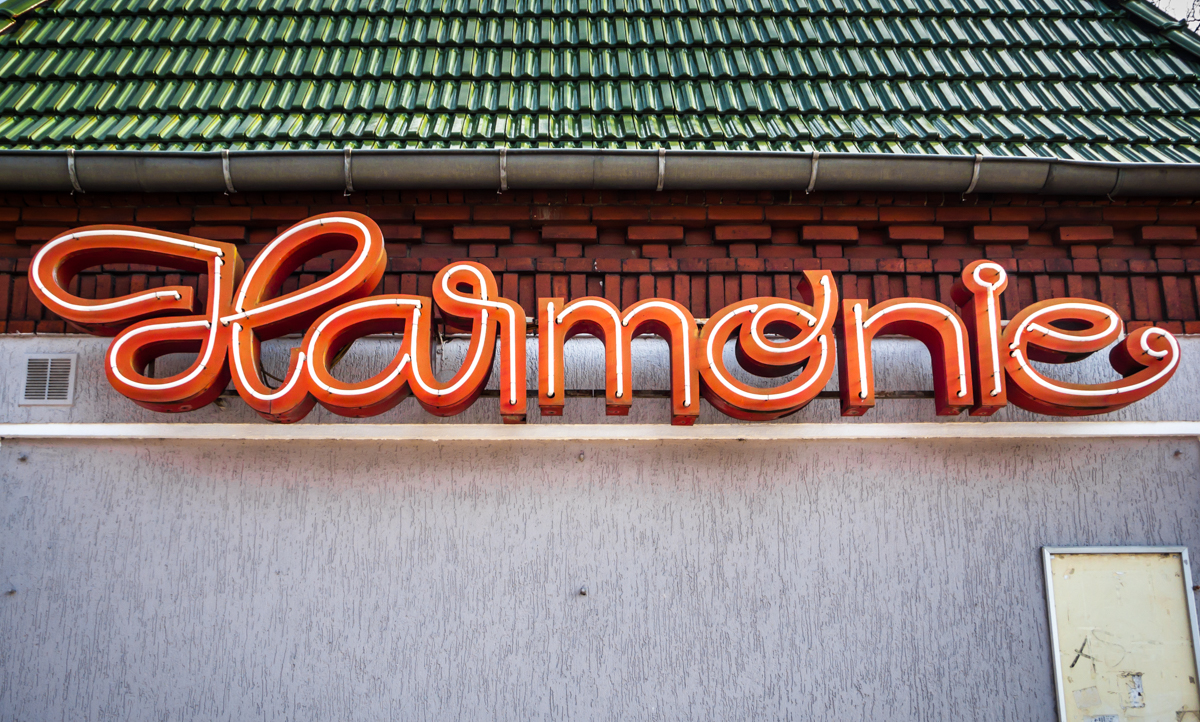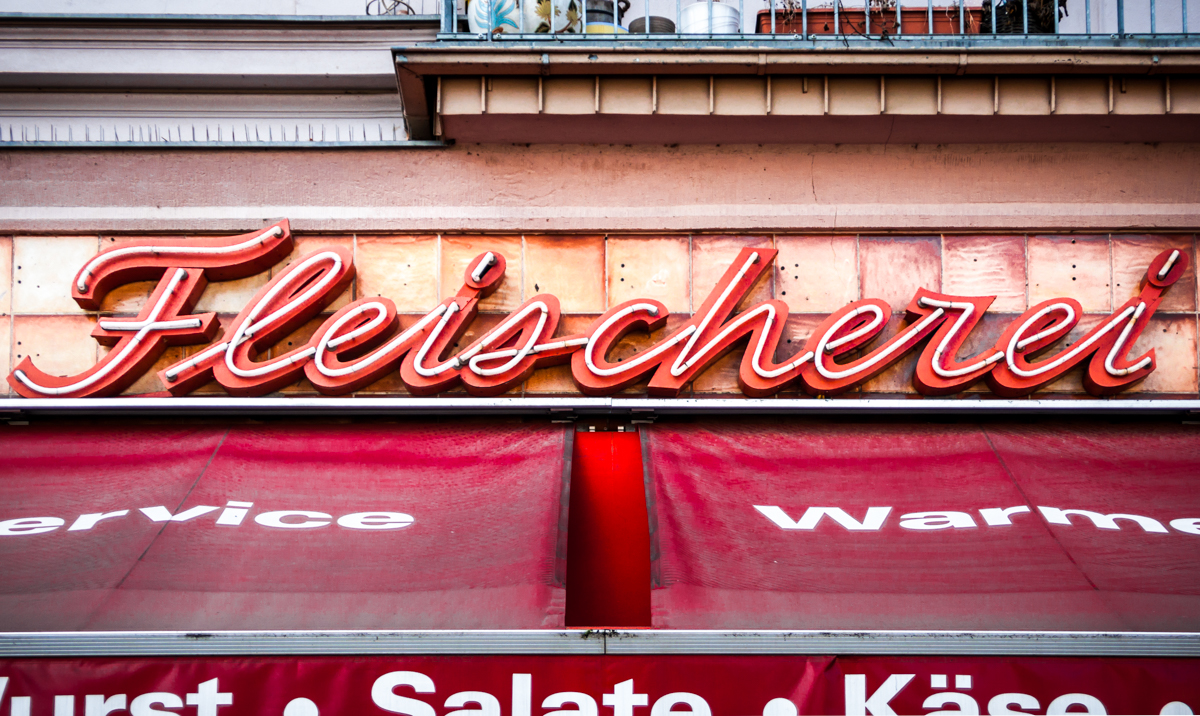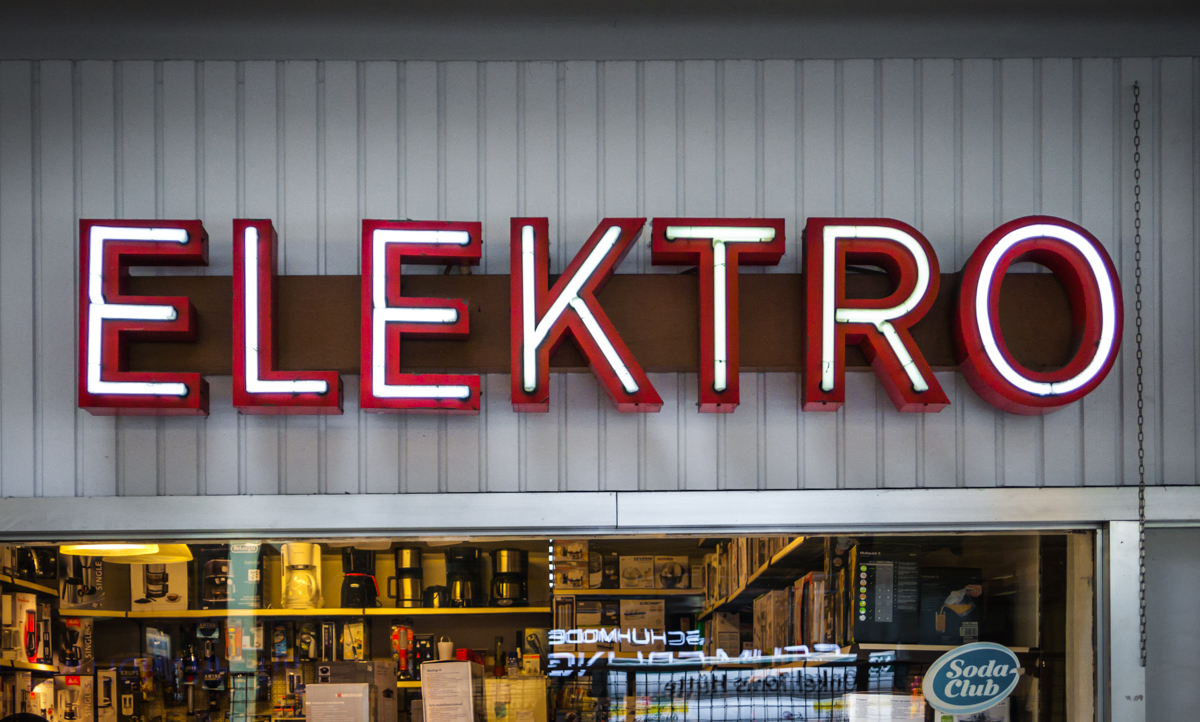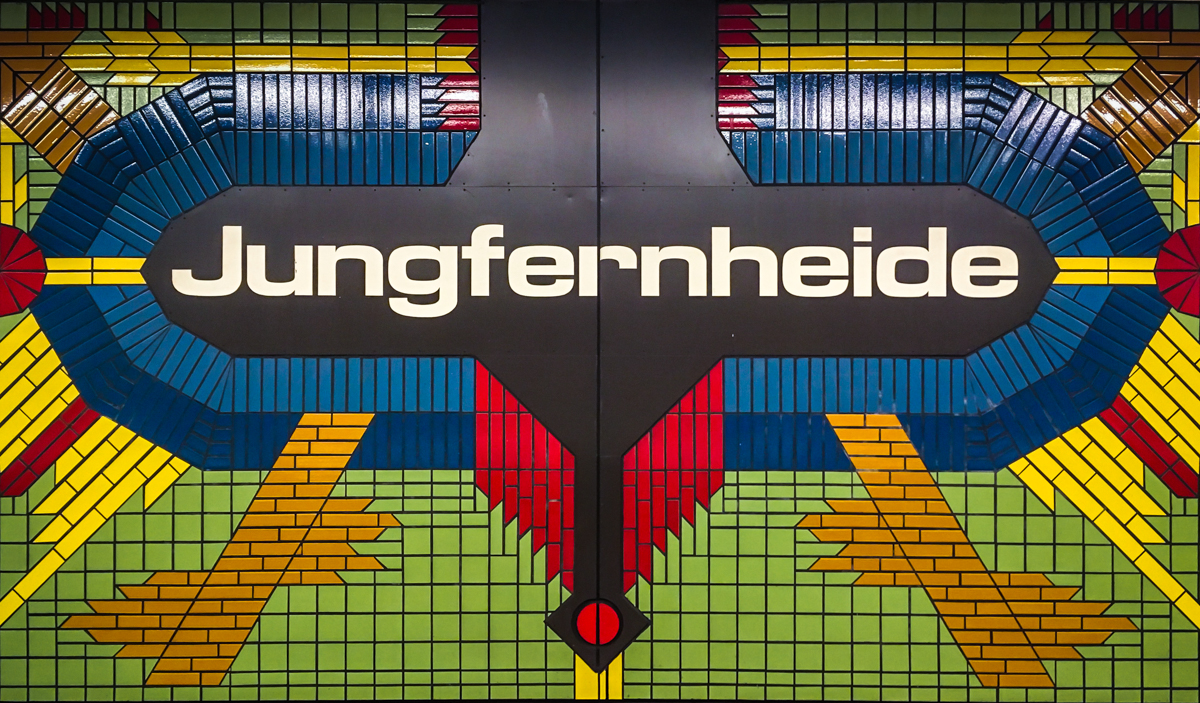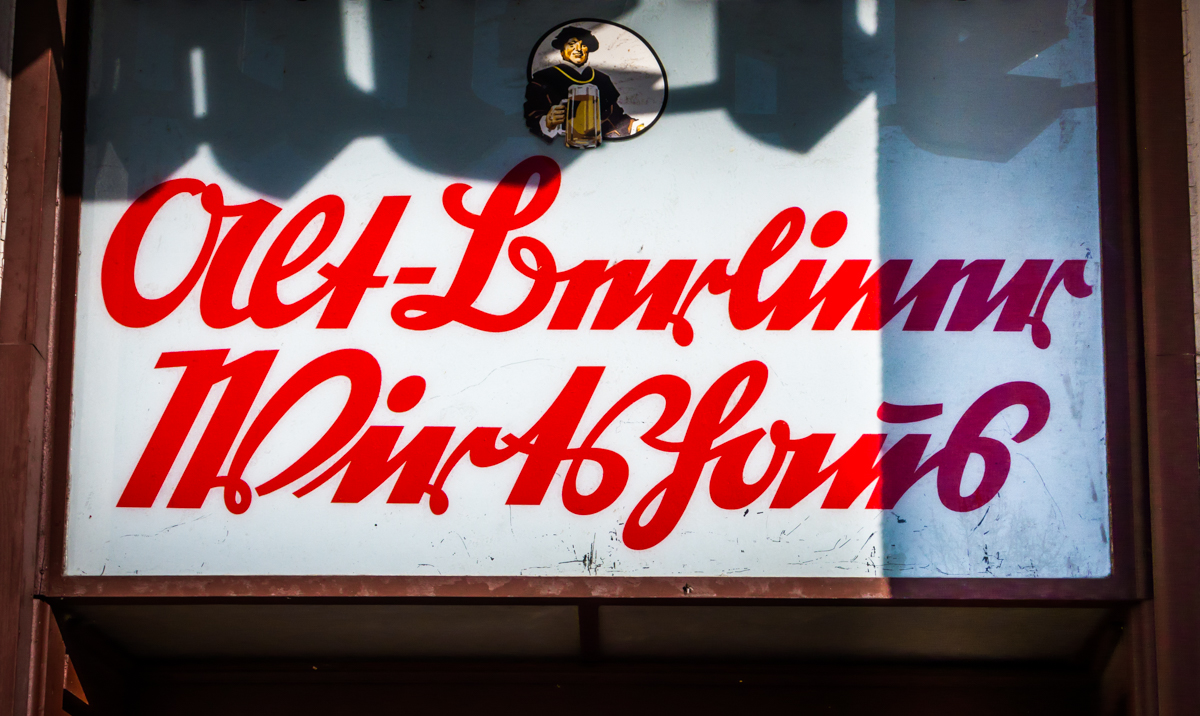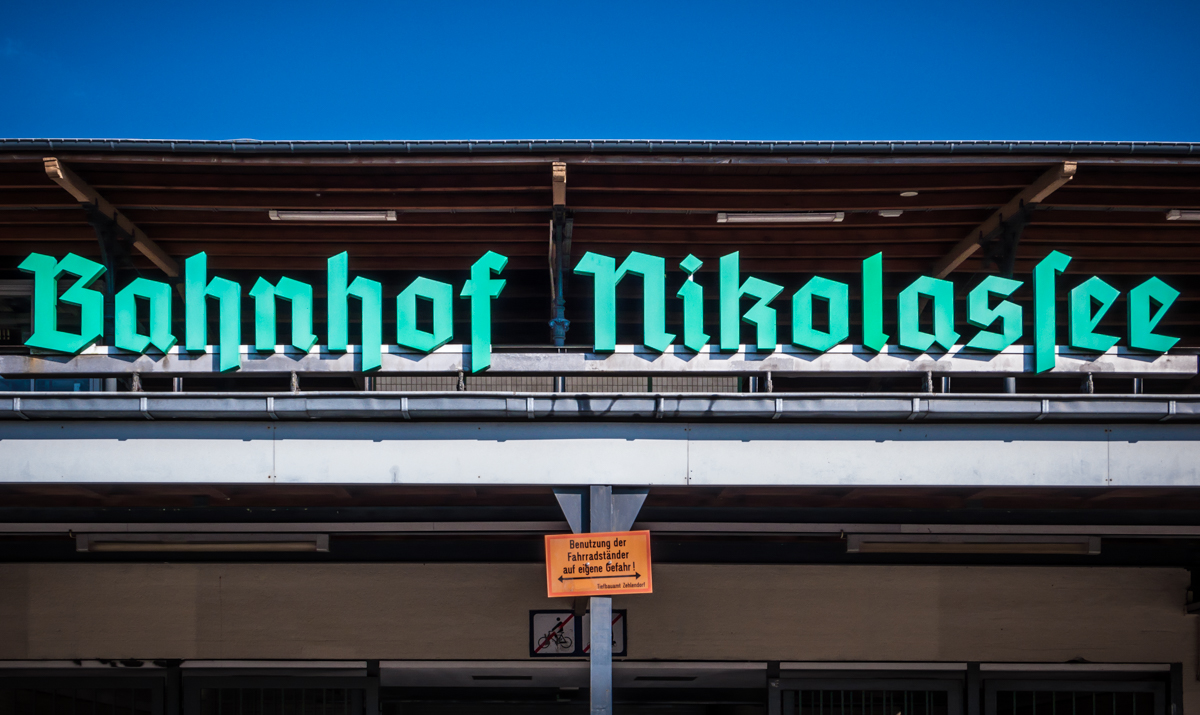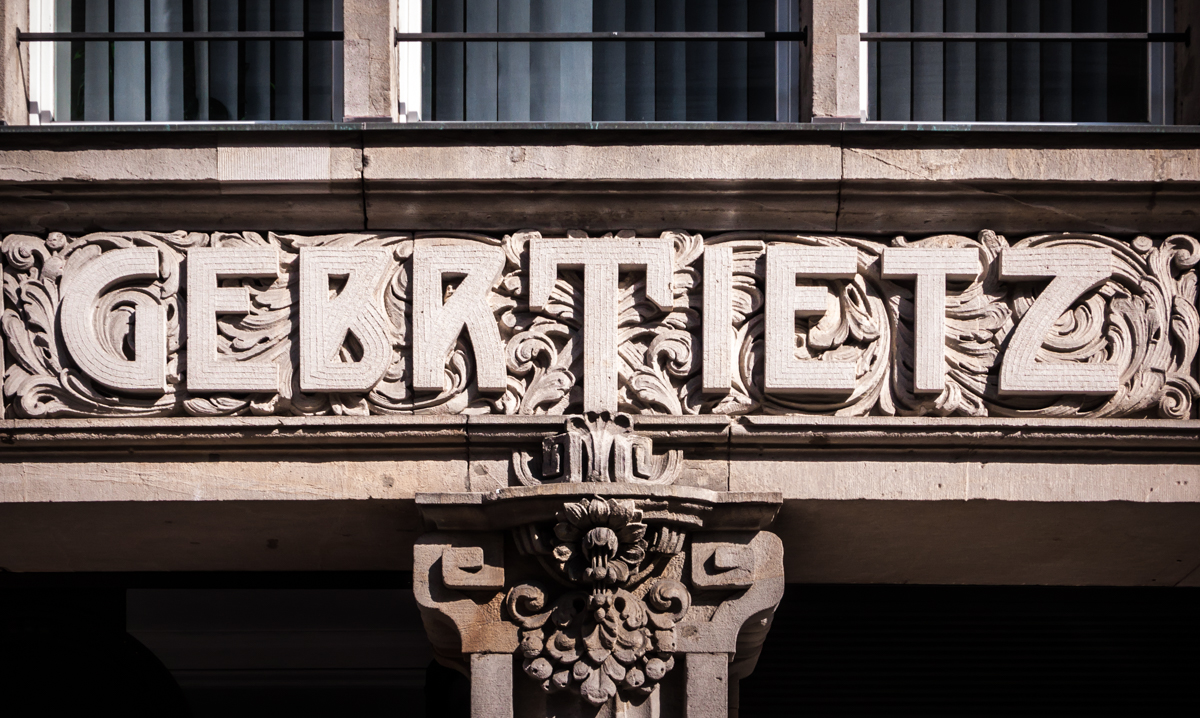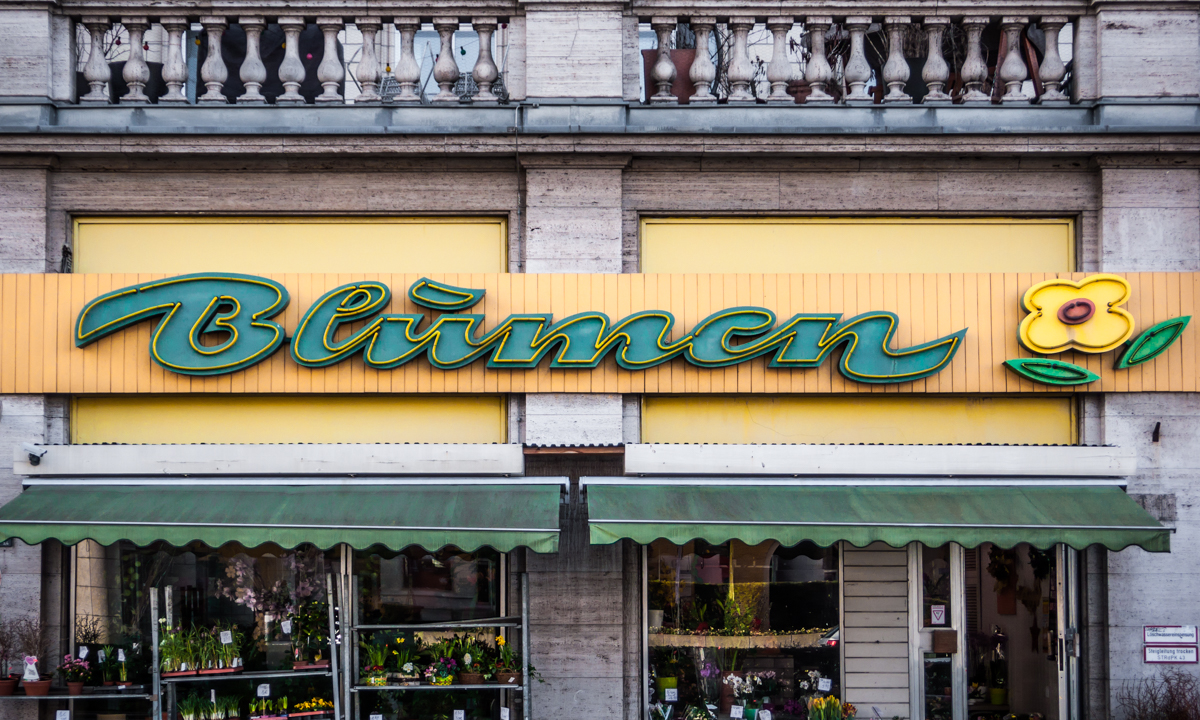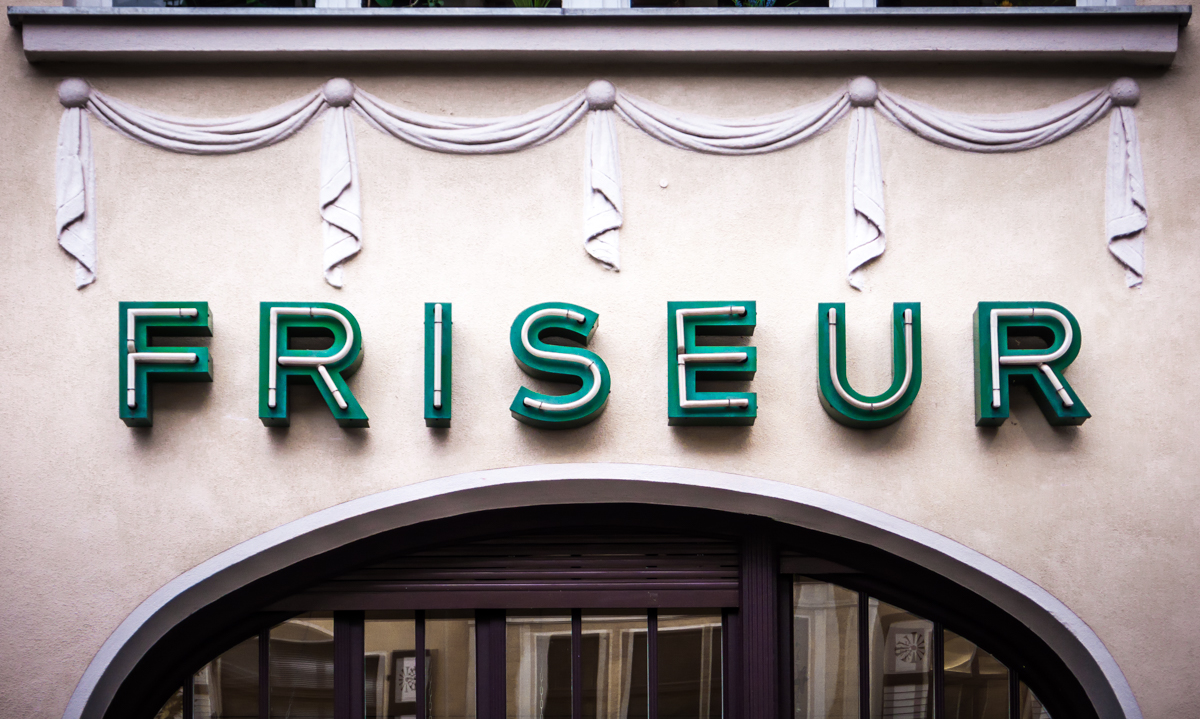
Berlin Typography Project: a talk with Jesse Simon on his Berlin's type hunting adventure
If you wonder what is Berlin's relation to typography the Berlin Typography Project has many answers to provide. “In terms of urban structure, Berlin has the same relationship with typography as any city” says Jesse Simon, director of the Berlin Typography Project to Typeroom's Loukas Karnis.
“Words are an essential part of our quotidian existence – they are around us at all times whether we pay attention to them or not – and the visual form in which those words are expressed are essential in defining the character of a city. It should also be said, however, that Berlin has a good typographic community. For whatever reason there seem to be a lot of people here working in type design, so you could say that in Berlin, perhaps more than in other places, there is a built-in audience for the city’s typographic riches.”
Scanning the typography of a city as diverse as Berlin is a task we admire and BT is abandoned with urban design treasures, from the charming hotel signs of the past that capture the wanderer's eye, even though “the quirky neon and cursive scripts of the twentieth century are vanishing in the face of elegantly bland chains with unified corporate identities” to the bi-monthly 2019 series “Colours of Berlin” which examines the palette of this city's typographic elements the Berlin Typography Project is inspiring, to say the least.
Recently Simon asked the Twitterverse of its insights in the prospect of a Belirn Typography Project edition. Following is Typeroom's talk with the creator of a typographic journal like no other.
Typeroom: How did you decide to start the project? What inspired you?
Jesse Simon: Walking is always the best way to get to know a city, and when I moved to Berlin in 2012 I spent a lot of time exploring the different neighborhoods on foot. It’s impossible not to notice the great old signs, but it occurred to me only gradually how essential they were to the character of the street. The more I started paying attention to them, the more I wanted to do something with them. I wasn’t sure what exactly, but photographing them seemed like a good start.
As I became more focussed on looking for signs, I noticed that a lot of the older ones were disappearing at a rapid rate. Berlin has been catching up to the other major European capitals over the past few years in terms of gentrification, and a lot of the old city is being transformed into something more modern but less interesting. So the project shifted very quickly from a celebration of urban typography to an act of preservation.
T: When was BTP first launched?
JS: The Twitter account was launched three years ago in October of 2016. The blog followed maybe half a year after that. For a while there was a sister project called Berlin Texture, which I really enjoyed but which never quite found an audience; it’s been on hiatus for about a year now. There is also a Berlin Typography Instagram account but it fizzled pretty quickly; the square format of Instagram simply isn’t right for the subject matter.
T: How would you describe Berlin's typography in five words or less?
JS: Diverse and unpredictable.
T: Which is the oldest or iconic typographic element in Berlin?
JS: As with most cities, Berlin has gone through numerous distinct eras in which certain typestyles and materials were especially popular. With the exception of some stone carving, much of what is visible in Berlin dates from after the second world war, and in order to get a sense of what the typographic character of the city was like in, say, the 1920s one is really limited to looking at old photographs. Neon was especially popular during the post-War economic recovery, and the older neon signs that survive conjure the curious optimism of that era.
T: Which are your own favorite typographic elements of Berlin?
JS: Personally I like anything that offers a window into the past, a glimpse of what the city used to be. This can take many forms. Sometimes it can be an old neon sign, sometimes it can be some barely legible gold on an old piece of glass, or it can be an inscription in stone. But if you look hard enough, past all of the modern signs, you can find lots of text in Berlin that encapsulates the spirit of some previous age.
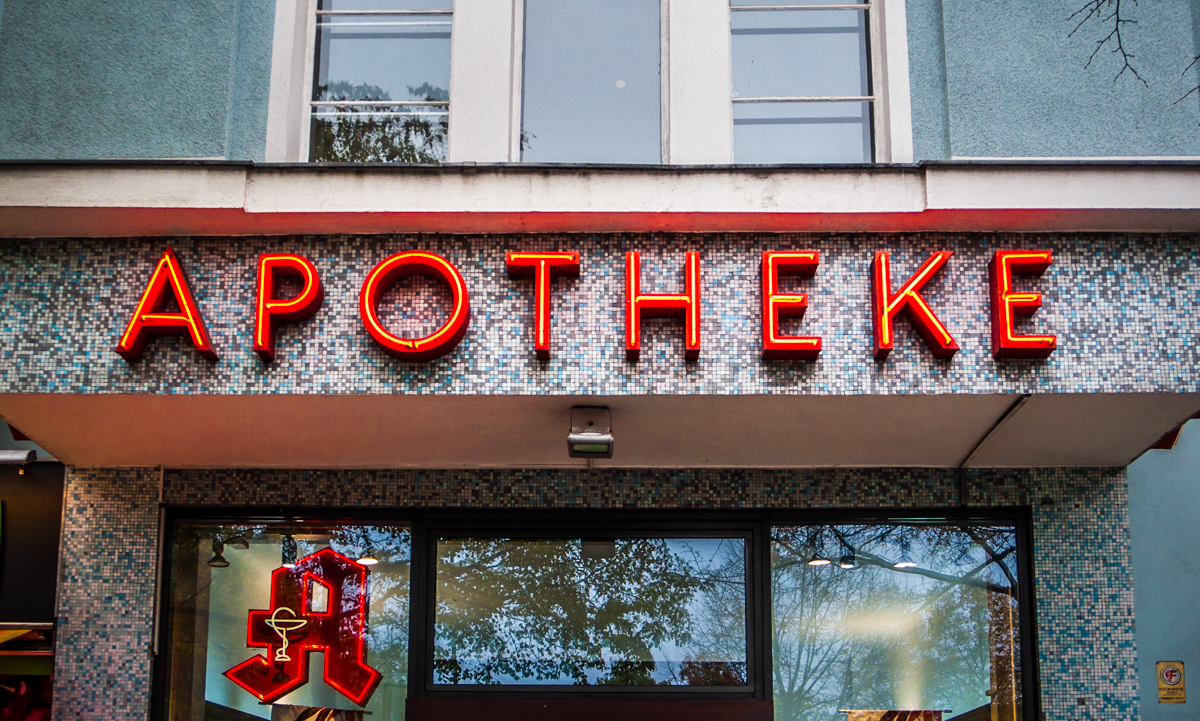
T: Which neighborhood has the most interesting type elements in your city? Are there any differences between West and East Berlin in terms of type?
JS: Much of Berlin’s most interesting typography can be found in the West. In a three or four hour stroll around Charlottenburg or Wilmersdorf, you will encounter dozens of fantastic signs from different eras, whereas if you spend the afternoon in Pankow or Weissensee you’ll find almost nothing. The reason for this, as far as I can tell, is that after reunification there seems to have been a desire in the East to distance themselves from the communist era. In practice, this meant getting rid of the visual reminders of the past, including most of the old shopfront signs. If you walk through the Eastern boroughs, a lot of the signage dates from the early 2000s. In the Western boroughs, where there wasn’t that sudden regime change, the evolution of the old shopfront signage happened in a more organic manner.
T: The Colours of Berlin is your latest bi-monthly series on your site. So what is the color of Berlin that rules them all?